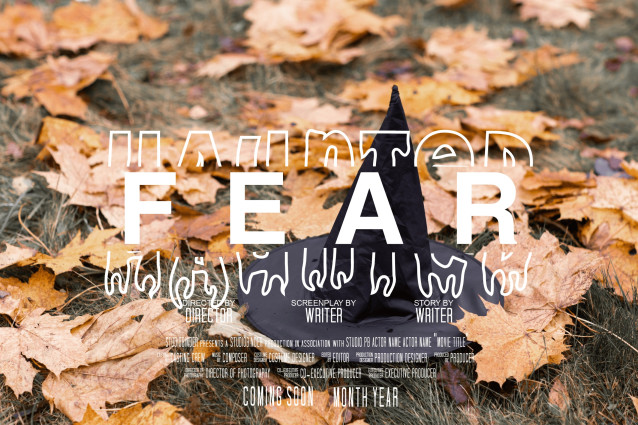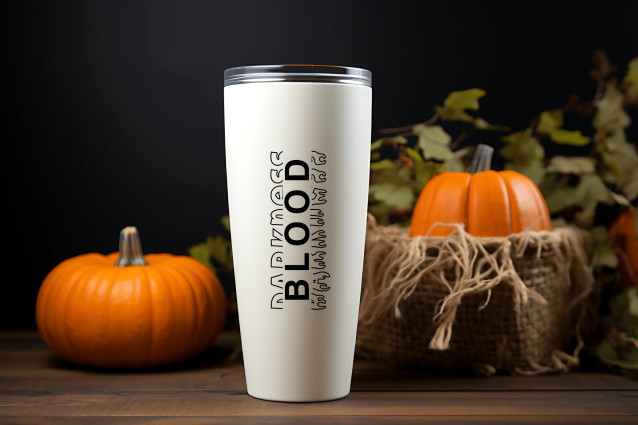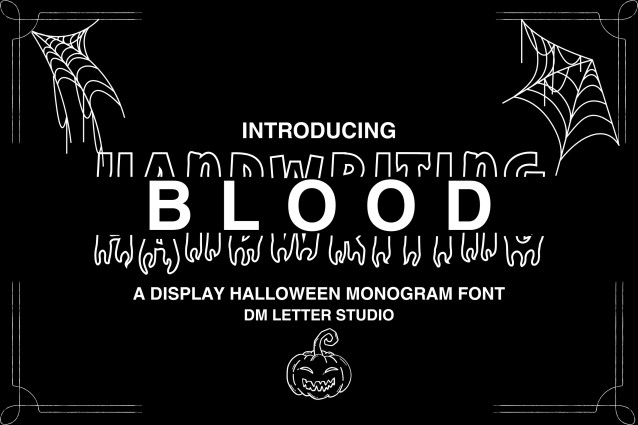
Handwriting Blood Monogram Font
Handwriting Blood Monogram Font is a chilling monogram-style font that fuses handwritten horror with gruesome dripping effects. Each character feels like it’s scrawled in fresh blood, perfect for Halloween crafts, horror titles, eerie branding, escape room designs, or anything that needs a bold, terrifying presence. The monogram structure gives each letter maximum impact in a compact, eye-catching form.